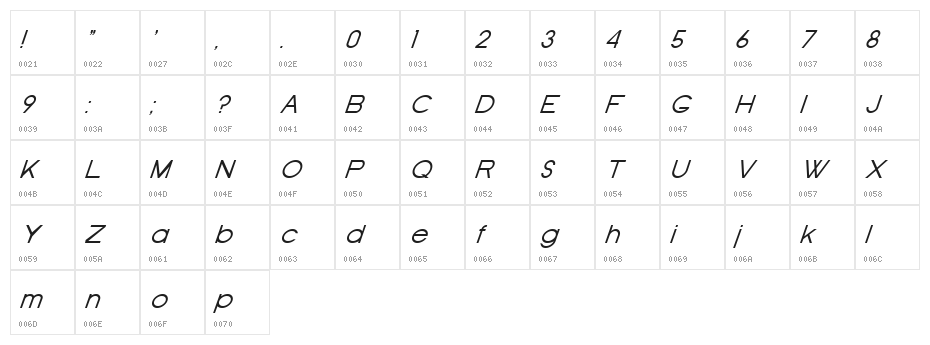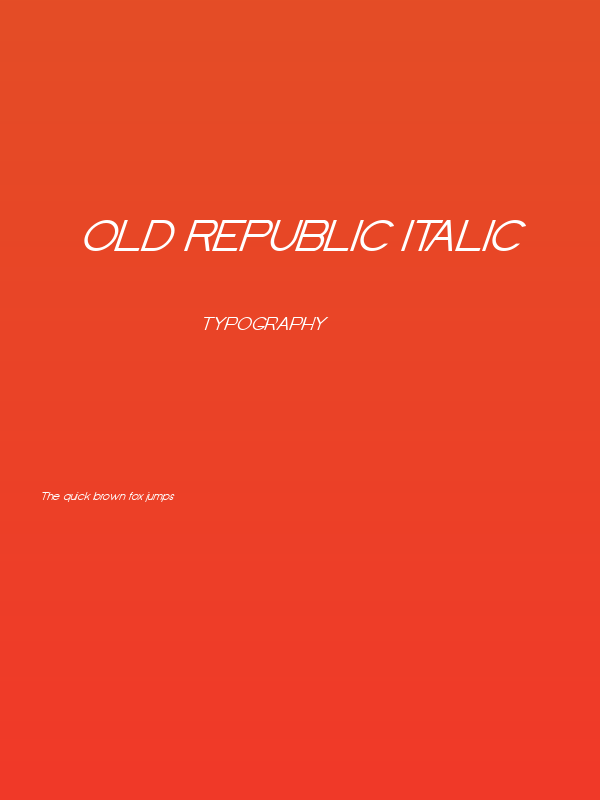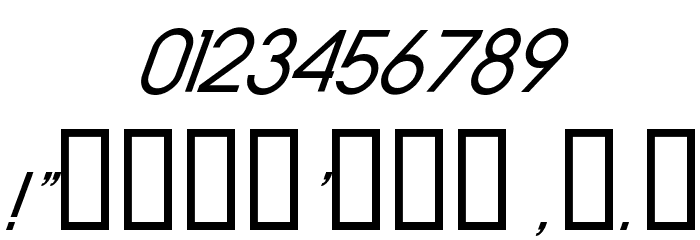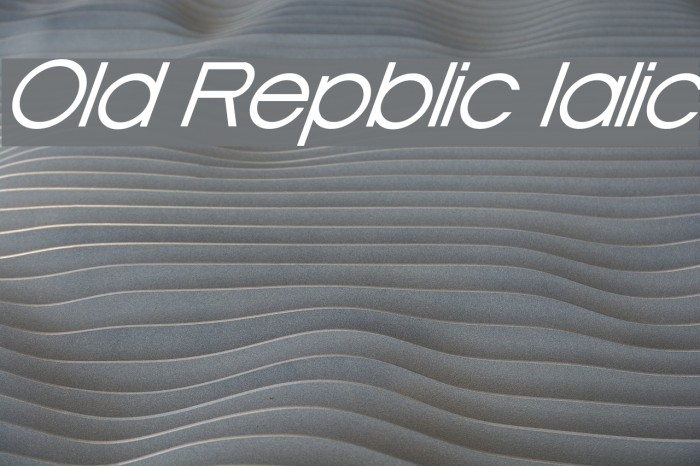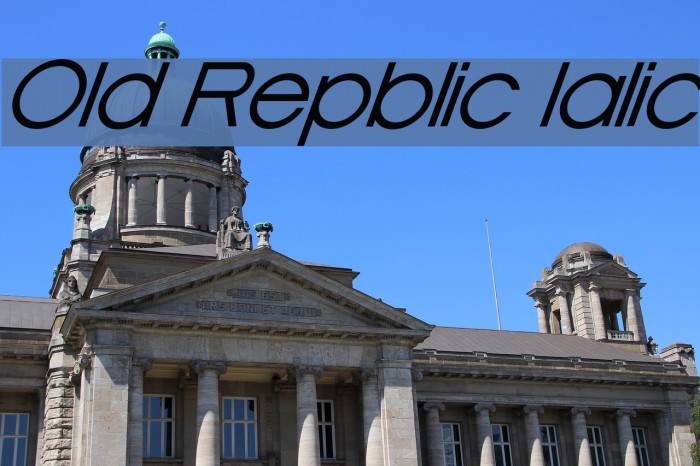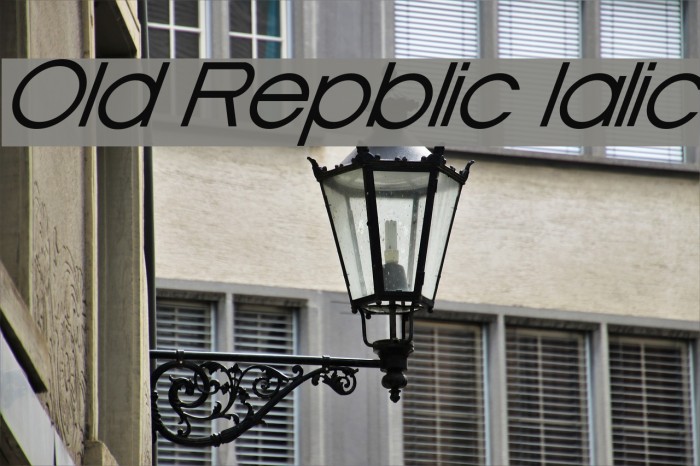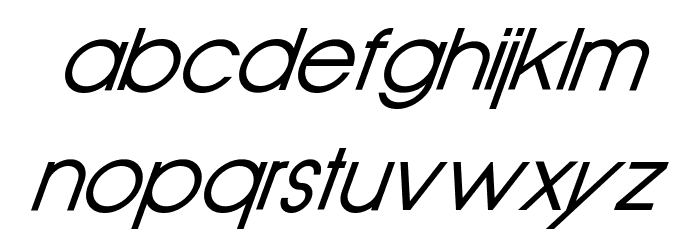
Old Republic Italic Font
Old Republic Italic Description
This font exhibits a sleek, italicized style with a modern twist. The characters are slightly elongated, giving them a dynamic and forward-leaning appearance. The strokes are consistent in weight, providing a uniform look across all letters and numbers. The uppercase letters maintain a strong presence with clean lines, while the lowercase letters offer a more subtle elegance. The numerals are clear and easy to read, matching the overall aesthetic. Special characters are designed to complement the alphabet, maintaining the same slanted and streamlined form. This font is ideal for projects that require a contemporary and stylish touch.
| Use Case | Headlines, Logos, Editorial Design |
| Proposed Projects | Ideal for branding, advertising, and editorial design where a modern and stylish appearance is desired. |